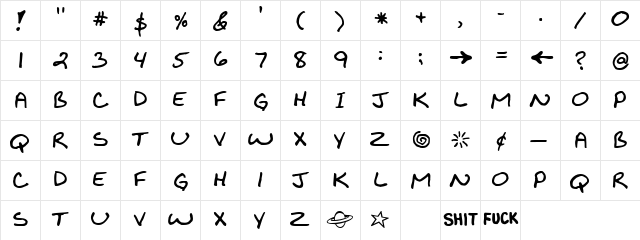
BikyBold Plain
| Designer | Eric Bickernicks |
Design Context for BikyBold Typeface
BikyBold is a composed and adaptable typeface that performs quietly and consistently across a wide range of design contexts. The heavy weight commands attention and anchors typographic hierarchies.